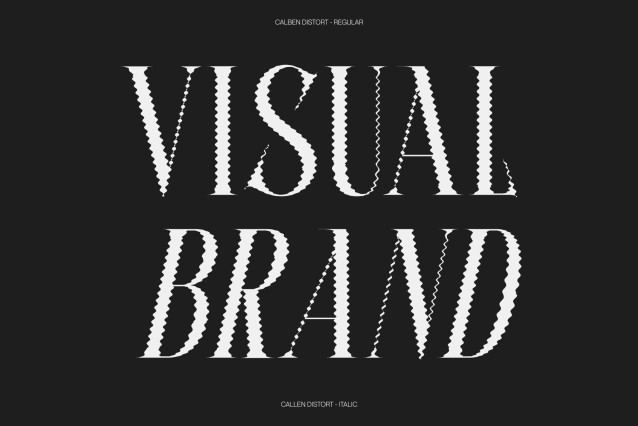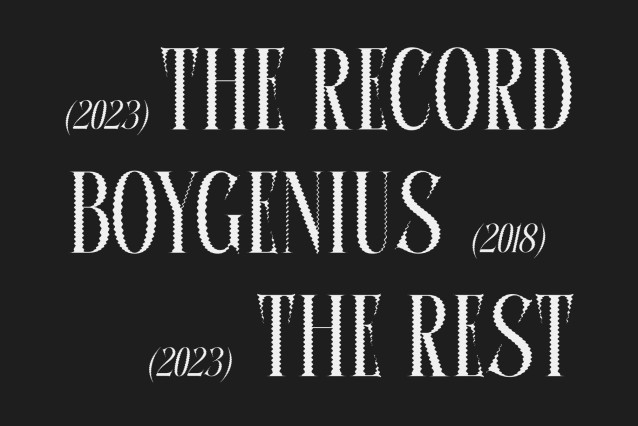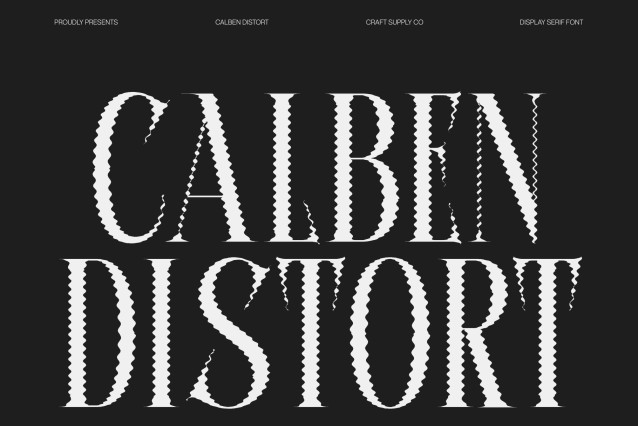
Calben Distort – Elegant Font: Luxury Serif with a Melting Contemporary Edge
Elegant Serif with Expressive Distortion
This Elegant Font transforms a refined modern serif into an artistic statement through subtle melting distortion. Its sleek lines and sophisticated proportions maintain a luxurious and professional feel, while softened edges introduce a contemporary and experimental personality. The result is a typeface that balances timeless elegance with modern creativity.
Melting Details for a Unique Luxury Feel
The distort style adds fluid, organic contours to the letter edges, creating a gentle melting effect that enhances visual interest. This expressive detail brings movement and character to the typeface, making it feel more dynamic while preserving its refined structure.